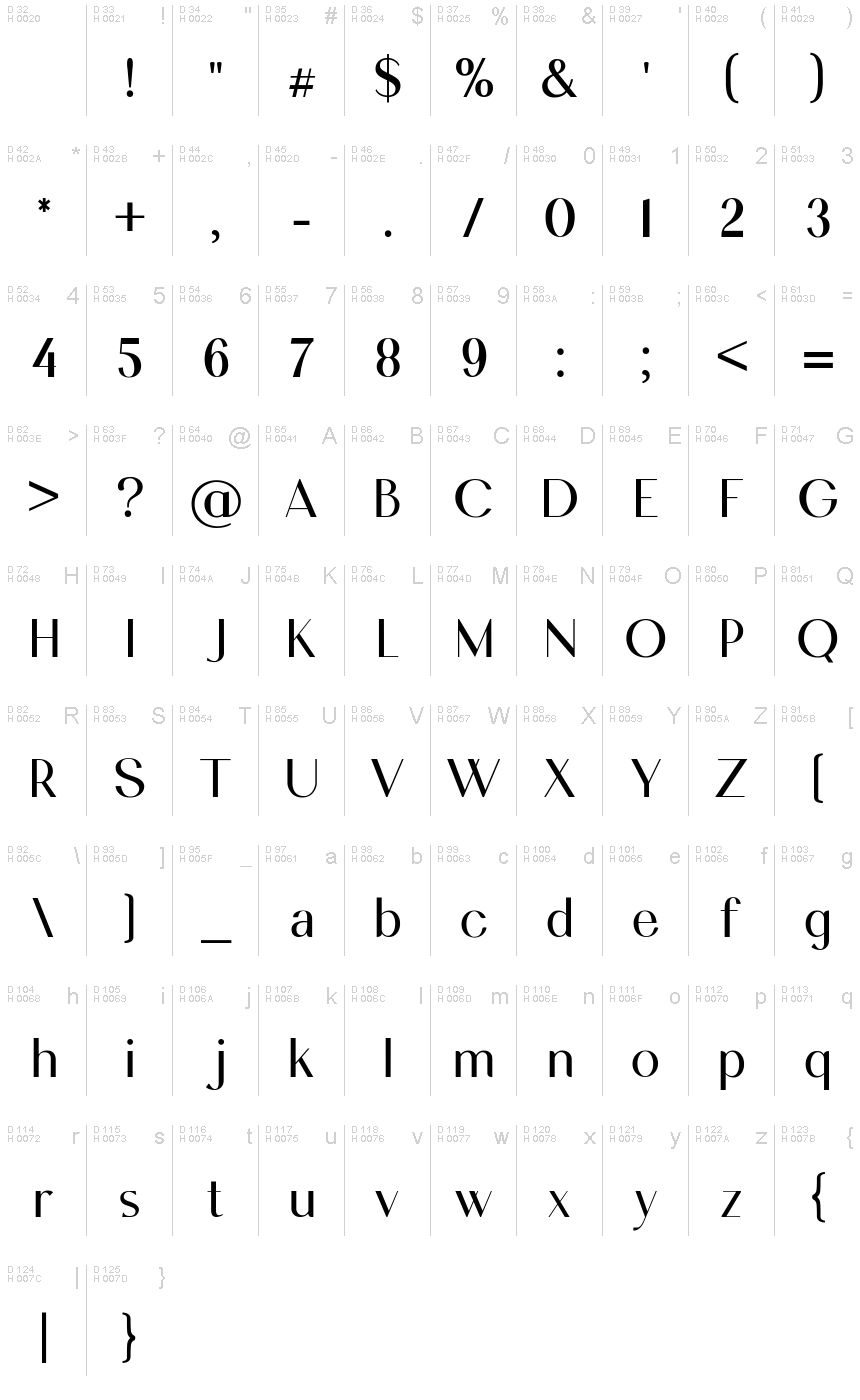
Anthemia
Anthemia, a captivating sans-serif font crafted by UI Creative, exudes a harmonious blend of modern elegance and timeless sophistication. Its clean lines, balanced proportions, and refined minimalism create a visually striking and aesthetically pleasing typographic experience. Anthemia's distinctive character shines through its seamless letter forms, inviting viewers to engage with its refined aesthetic.
Versatile and adaptable, Anthemia's versatility makes it a compelling choice for a diverse range of design applications. Its versatility allows it to seamlessly integrate into branding, editorial, and digital design projects, elevating the visual impact with its refined and modern sensibilities.